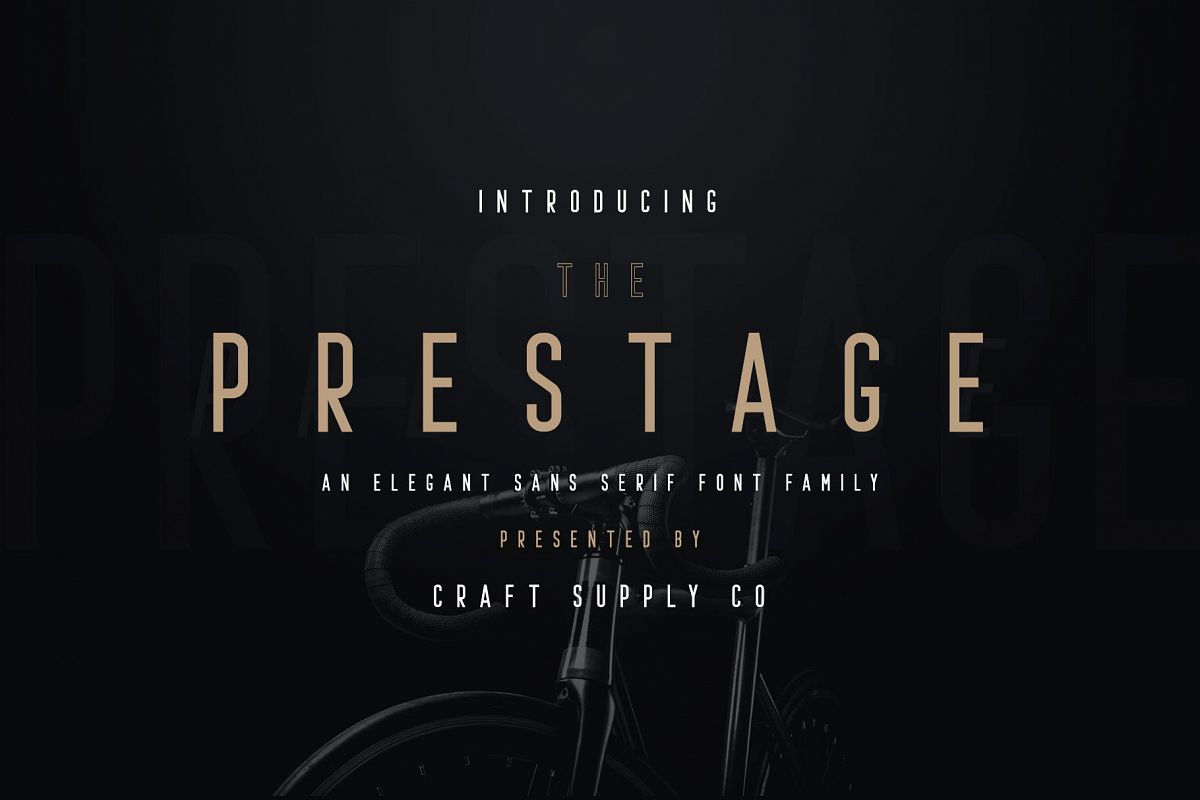
Prestage Font Family
Introducing New Font : Prestage Font Family is an Elegant bold sans serif with solid and outlined font files. Prestage Font Family is based on the compact solid font, by combining a variety of styles. Suitable for Logo, greeting cards, quotes, posters, branding, name card, stationary, design title, blog header, art quote, typographyPrestage.
Font Family also suitable for art, modern envelope lettering or book design, happening style like handdrawn design or watercolor design theme, craft design, any DIY project, book title, wedding font, pop vintage design, or any purpose to make our art/design project look pretty and trendy.